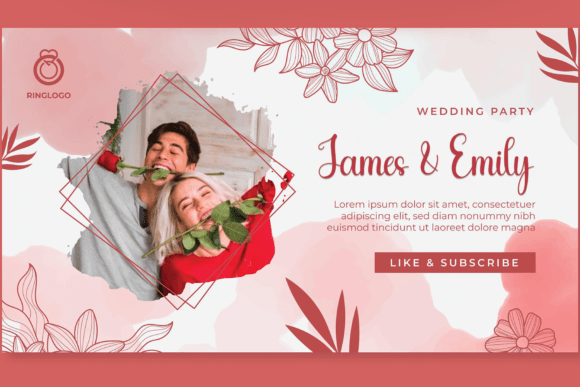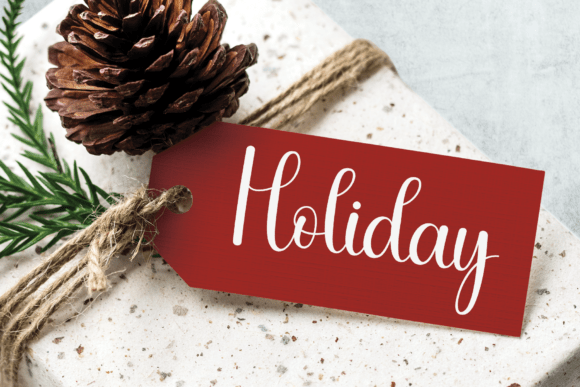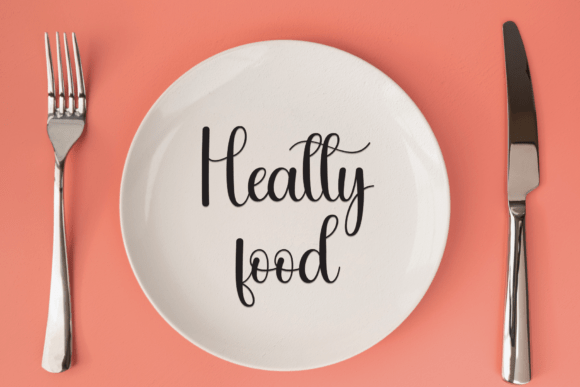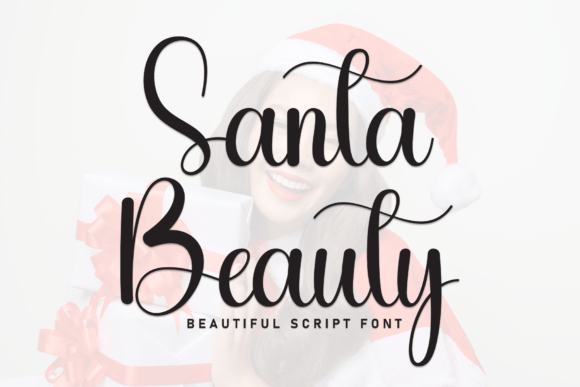
Introduction to Santa Beauty Font
Santa Beauty is a stylish script font that exudes elegance and contemporary charm.
Featuring graceful strokes, fluid curves, and carefully crafted letterforms, it captures the beauty of hand-drawn calligraphy with a modern twist Ideal for logos, invitations, packaging, and social media graphics, it adds a refined and sophisticated touch to any design.
Key Features of Santa Beauty Font
Why Choose Santa Beauty Font?
Santa Beauty Font offers exceptional quality and versatility, making it a valuable addition to your design toolkit. Whether you’re creating for personal projects or commercial use, Santa Beauty Font delivers professional results.